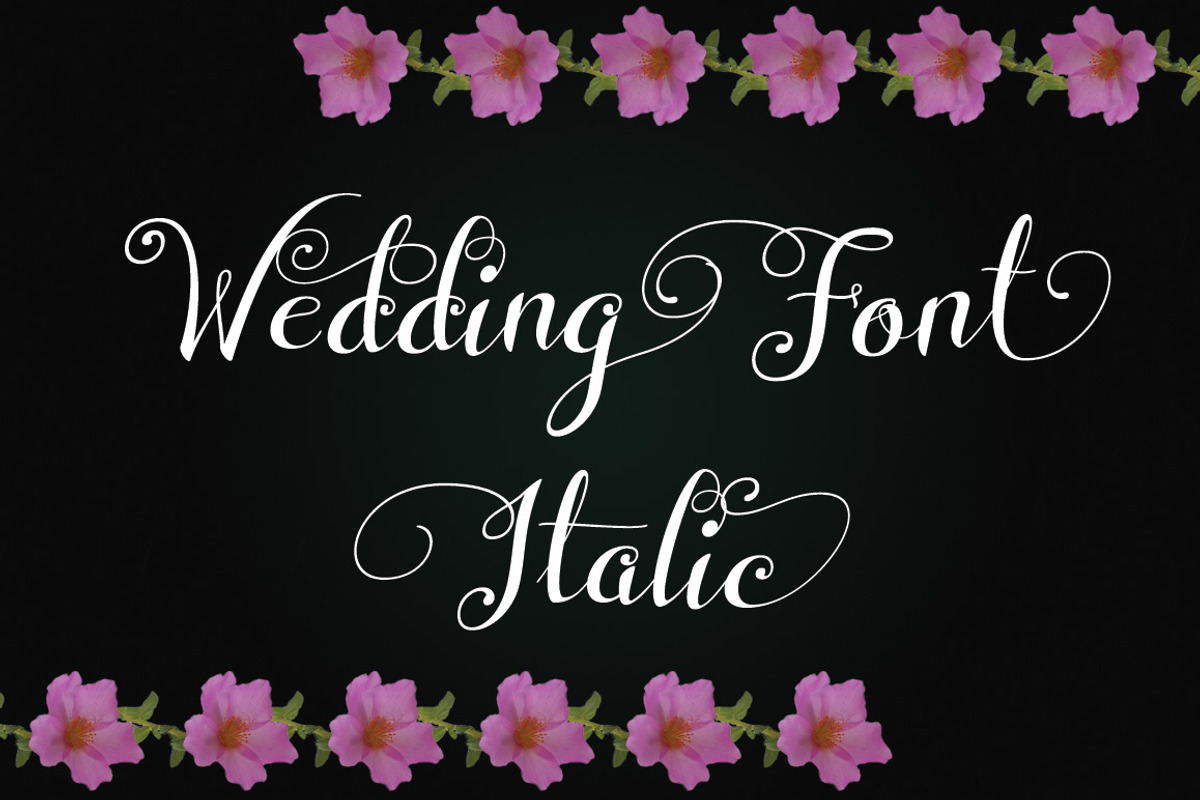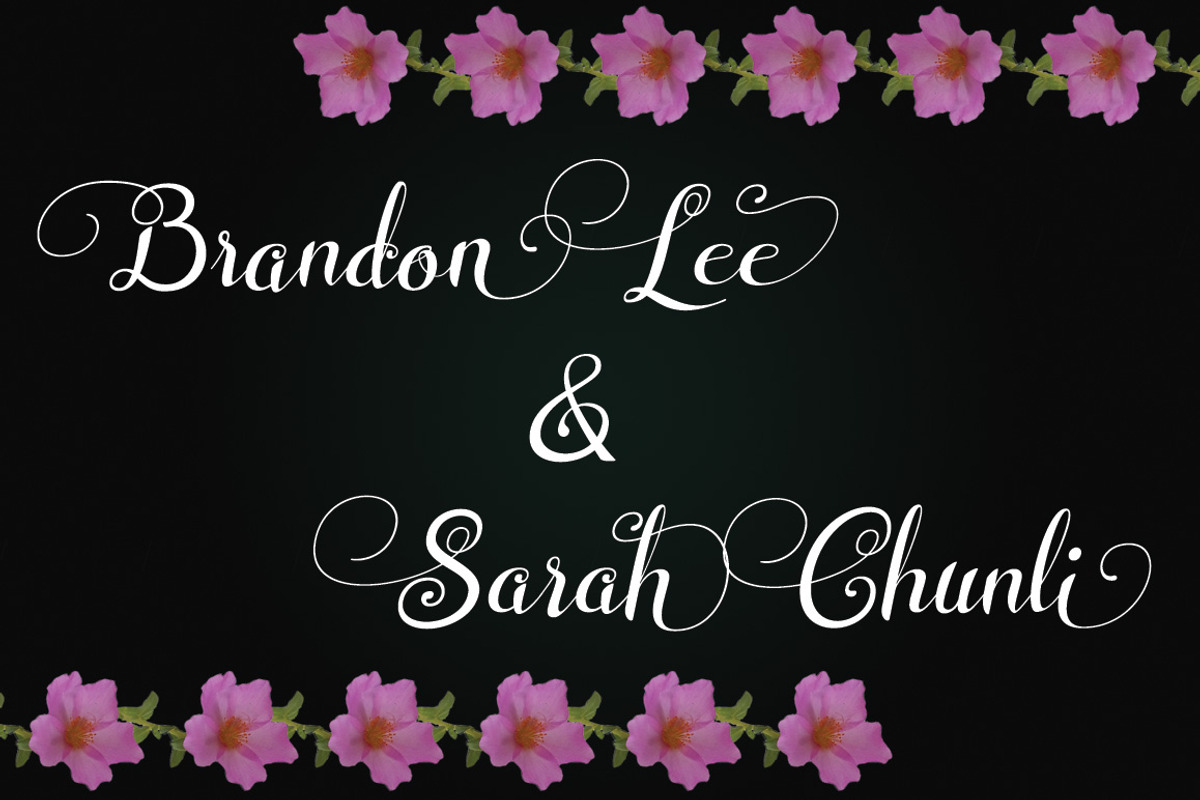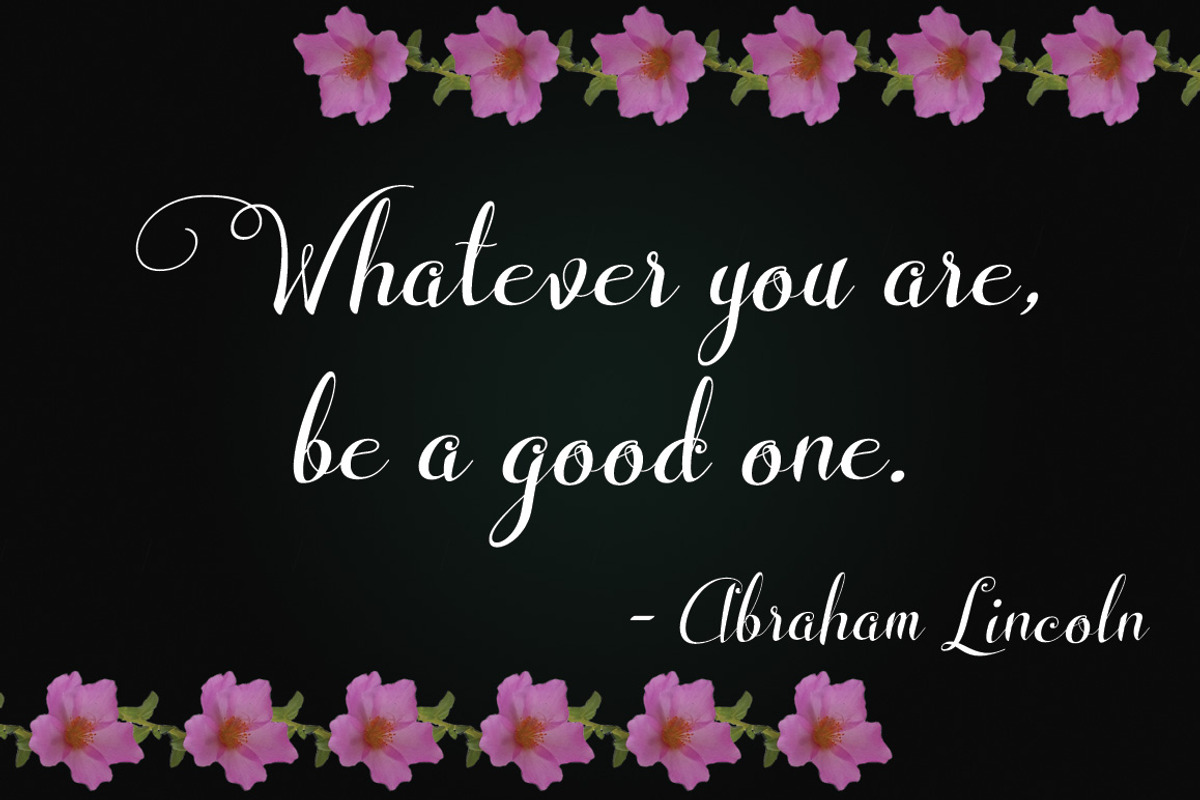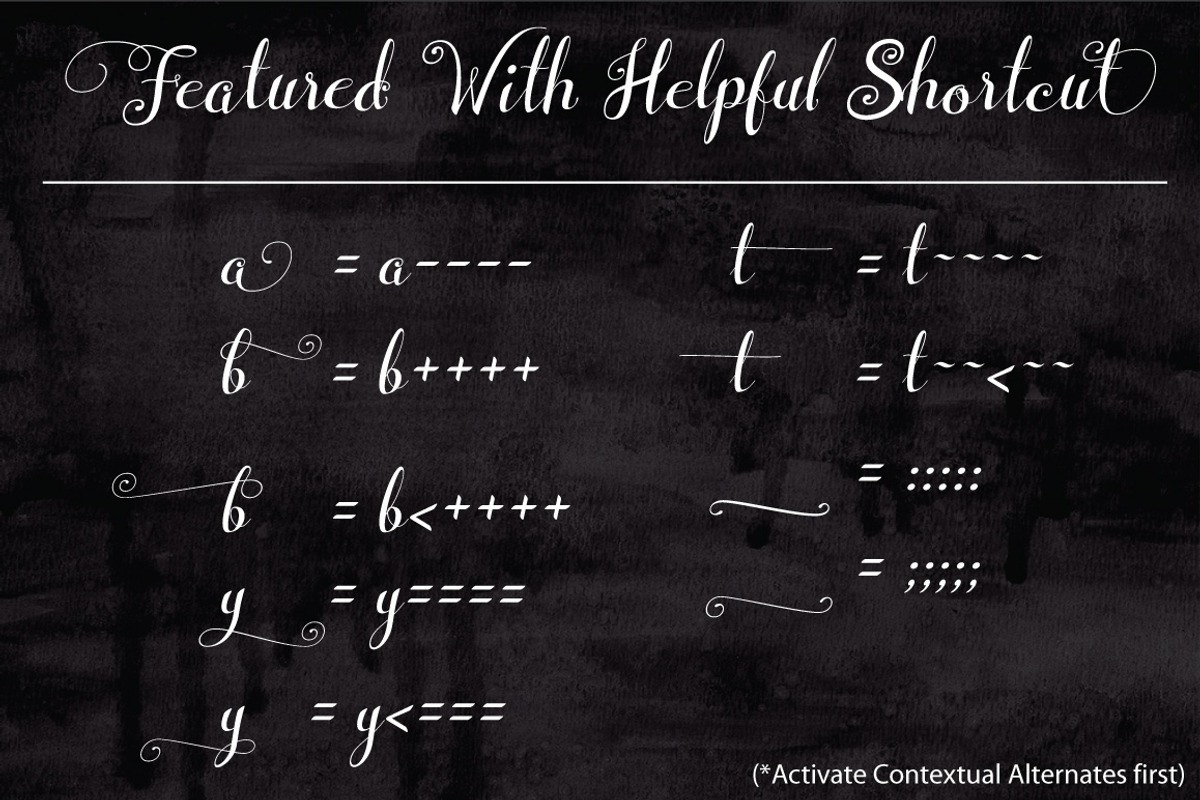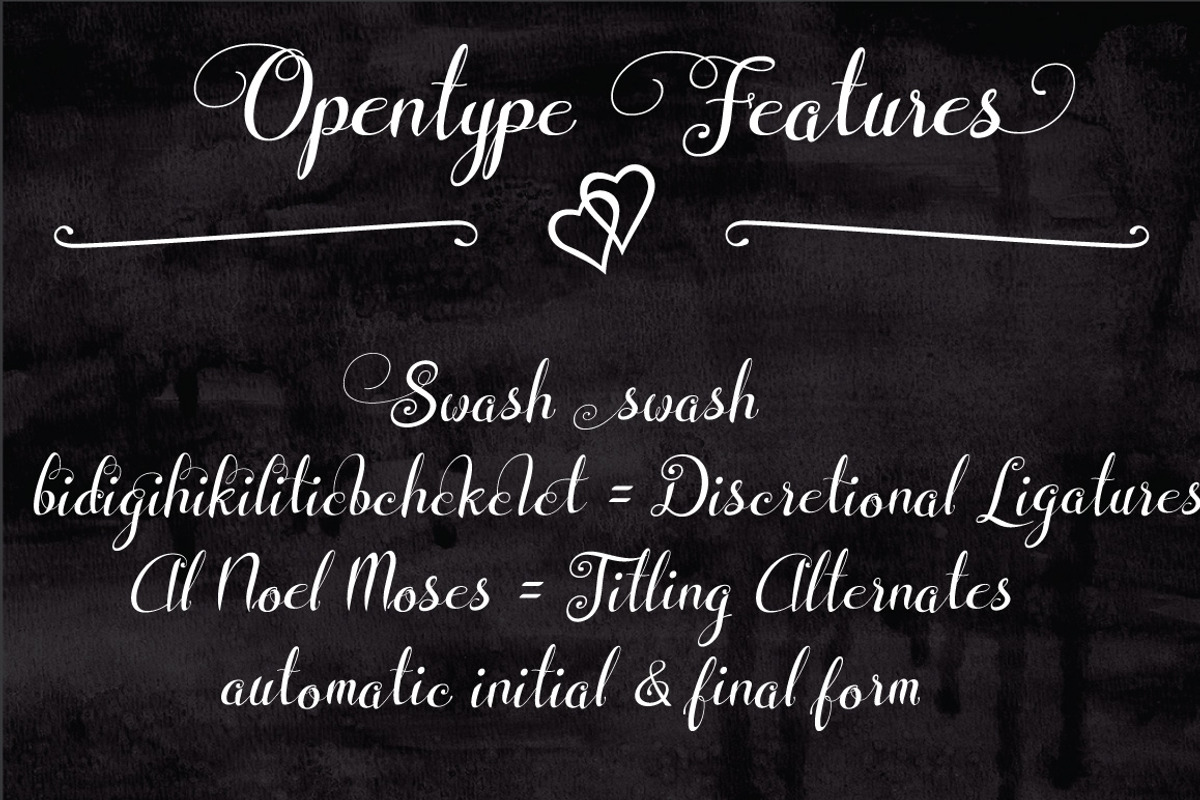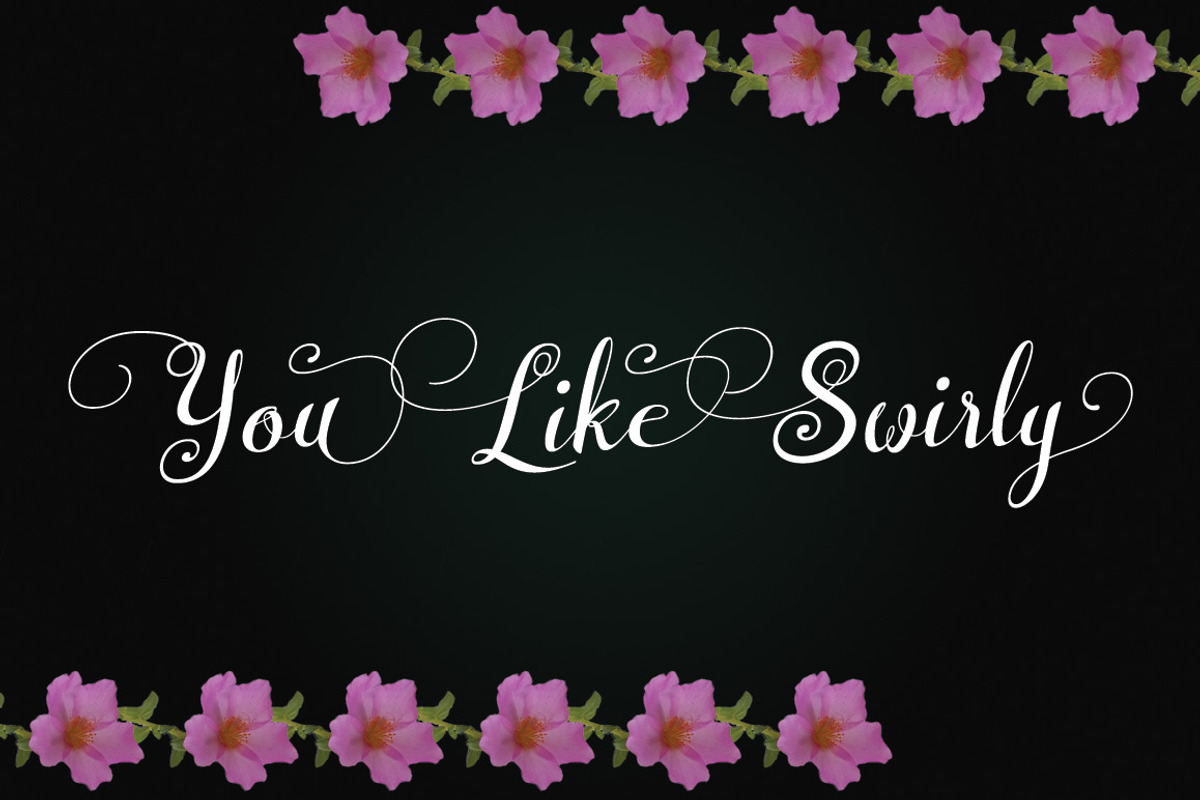
Wedding Font Italic
Wedding Font Italic by Royaltype is a font selected for branding, posters, packaging, typography.
- This font use two alternate each lowercase letter to avoid same letter in a pair, and sure there is hundreds swashy character to make your t
- The greatness of this font: Have two alternate each lowercase letter to avoid same letter in a pair.
- To avoid of difficulty of use alternate character, I feature it with hundreds shortcut to make access alternate character be so fast and eas
Why Wedding Font Italic is worth a look
Wedding Font Italic by Royaltype fits naturally into Branding, posters, packaging, typography.